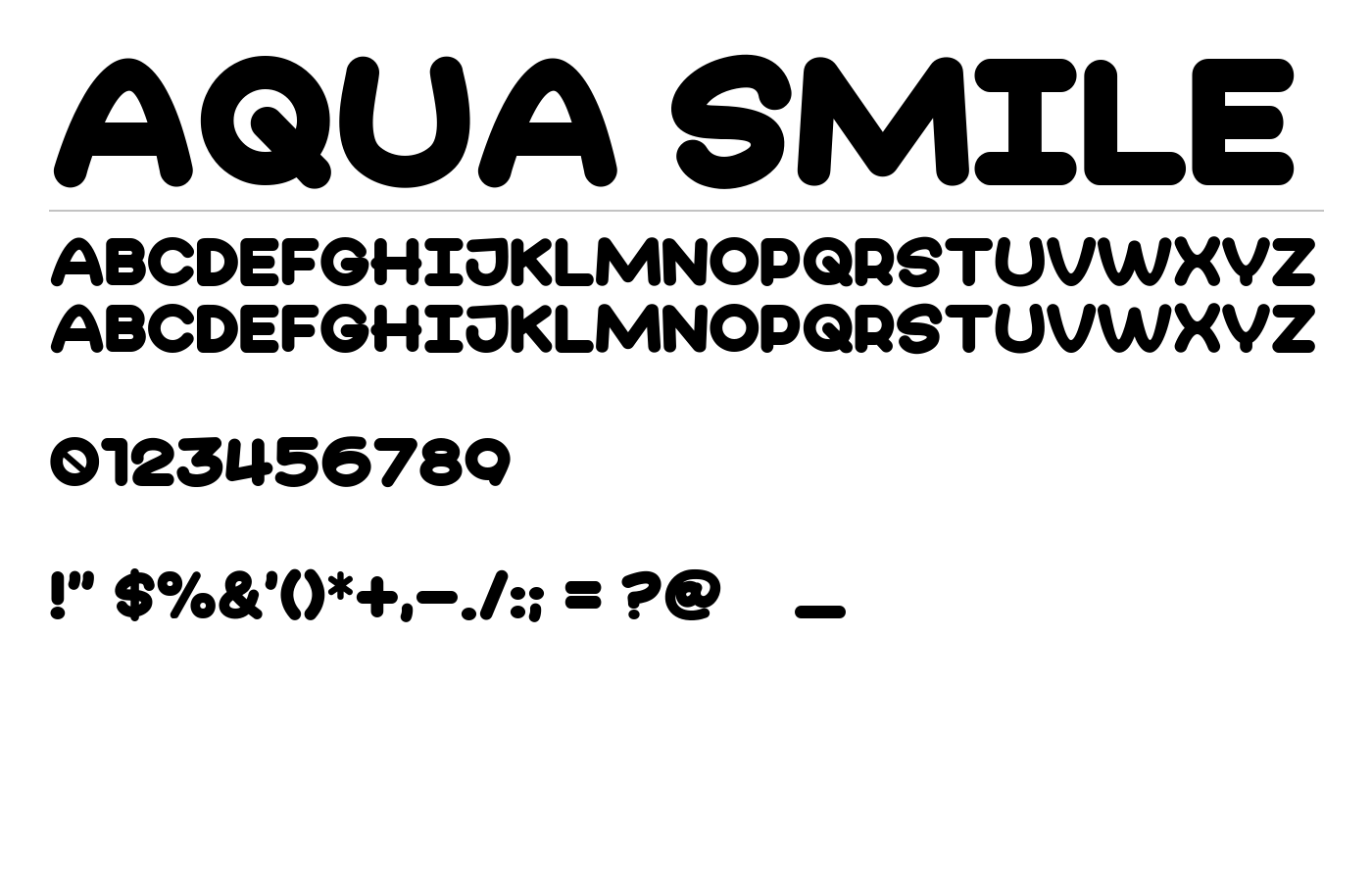
Aqua Smile is a bold, rounded sans serif font with a playful and friendly character, featuring wide letterforms and a smooth, soft stroke style that gives it a casual, approachable vibe. Its uniform weight and high x-height make it highly legible, ideal for fun, informal designs like children’s books, playful branding, or eye-catching headlines. This font is perfect for projects that want to communicate warmth, cheerfulness, and a modern, lighthearted personality.
Aqua Smile Font
About Aqua Smile Font
| Font family | Aqua Smile Font |
| Designer | Khurasan & Jalembe |